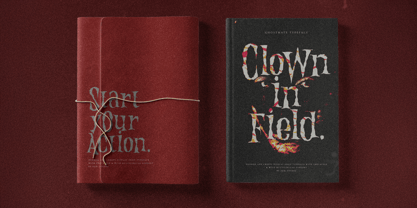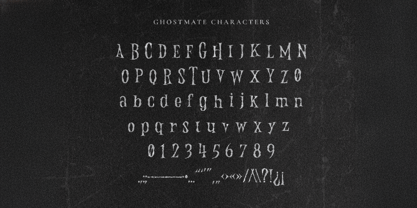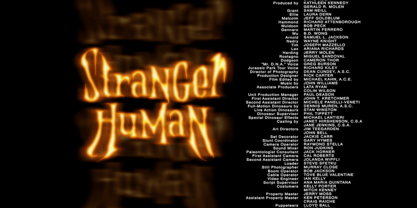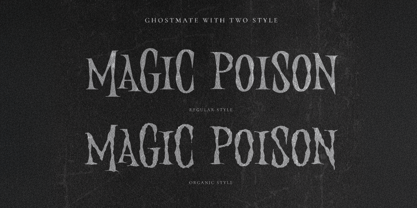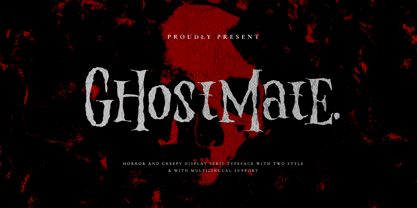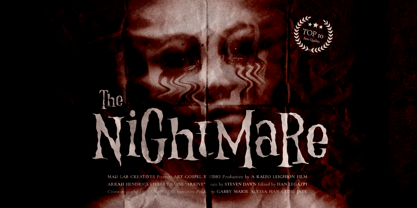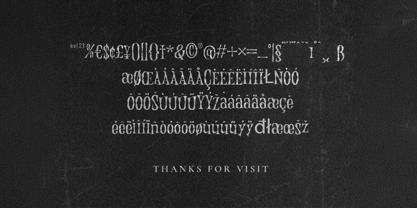
GhostMate
by GraphTypika
The GhostMate Font Family was designed by Dani Irawan and published by GraphTypika. GhostMate contains 2 styles and family package options. More about this family
Introducing GhostMate - Display Serif Font
Meet GhostMate - Display Serif Font, a bold and elegant typeface designed to captivate with its striking, vintage-inspired details. Perfect for headlines, logos, posters, or any design that needs a touch of sophistication, GhostMate combines timeless serif charm with a modern twist. With its versatile style and polished aesthetic, this font ensures your message stands out with character and grace.
Designers: Dani Irawan
Foundry: GraphTypika
GhostMate